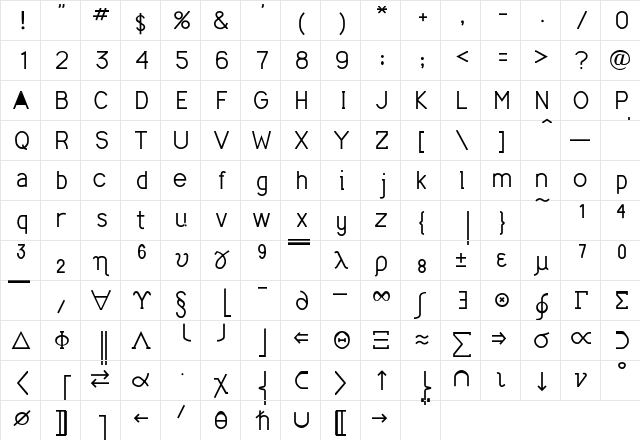
Hilliary Regular
Design Context for Hilliary Typeface
Hilliary offers clean, dependable letterforms without strong stylistic allegiance, making it a practical choice for designers who need flexibility.
Pro Tip: Use Hilliary in both headline and body roles to test its range before committing to a single application.